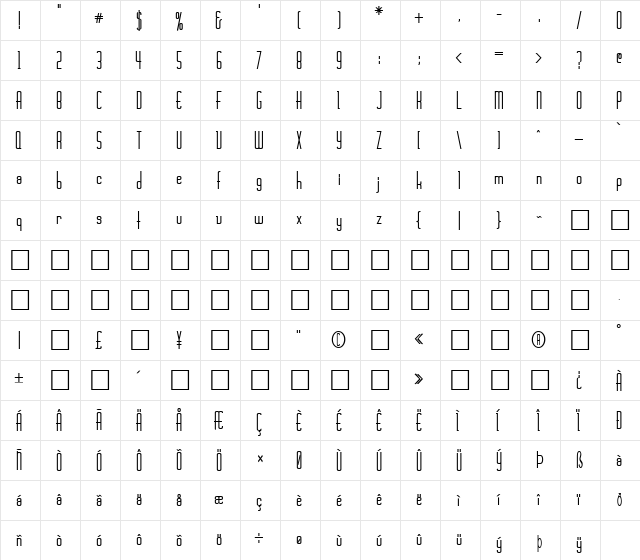
FZ BASIC 44 COND Bold Font Preview
FZ BASIC 44 COND Bold
Design Context for FZ BASIC 44 COND Typeface
FZ BASIC 44 COND is a composed and adaptable typeface that performs quietly and consistently across a wide range of design contexts. Its bold stroke weight gives it real presence on the page. The condensed width makes it efficient for tight spaces without sacrificing legibility.